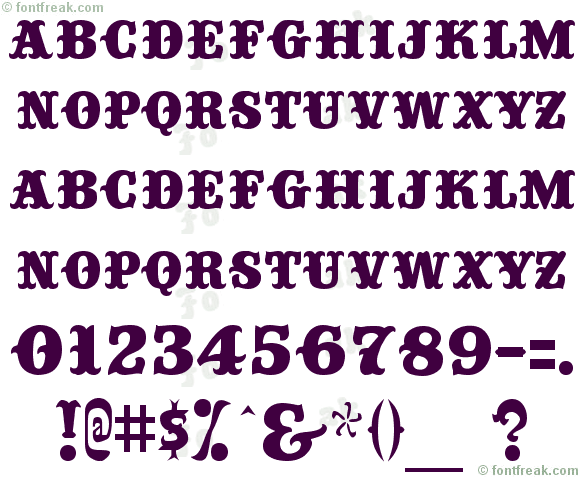
Big Top
About Big Top
The Big Top font by Shamrock & Oase is a striking display typeface that brings a playful yet bold aesthetic to any design project. As a decorative font, it captures attention with its unique character, making it ideal for a variety of creative applications. The font features a thick stroke weight, which contributes to its strong presence, while its slight contrast and rounded edges add a touch of whimsy. The spacing is generous, ensuring readability even at larger sizes, while the decorative elements—like the exaggerated curves and playful serifs—enhance its visual appeal.
Big Top is particularly well-suited for use in vibrant and engaging contexts. It shines in creating eye-catching movie posters, where its bold style can evoke excitement and intrigue. Additionally, it works wonderfully for children’s party invitations, evoking a sense of fun and celebration. Restaurant menus can also benefit from this font, as its lively character adds a distinctive flair to the dining experience. Small business owners looking to establish a memorable brand identity will find Big Top invaluable for logo design and promotional materials. Content creators can utilize it in social media graphics to capture audience attention quickly.
Targeted towards graphic designers, small business owners, and content creators, Big Top embodies a spirit of creativity and uniqueness that resonates across various industries. The Big Top font free download option makes it accessible for those eager to enhance their designs without breaking the bank. This font stands out not only for its bold and playful style but also for its versatility in a wide range of applications. With Big Top, your projects will undoubtedly leave a lasting impression.